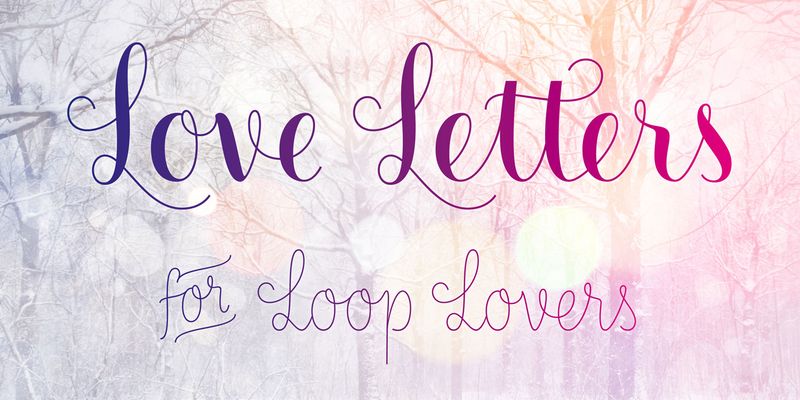
LiebeLotte Font Free Download is a delightful and expressive handwritten script typeface, perfect for adding charm and personality to any creative project. With its playful curves and natural stroke flow, LiebeLotte is ideal for wedding invitations, greeting cards, product packaging, and anything that needs a warm, handmade touch.
Designed to mimic authentic penmanship, LiebeLotte brings a human feel to your typography while maintaining excellent readability. It comes with beautiful swashes, alternates, and ligatures, giving designers the flexibility to create truly custom-looking lettering. Whether you're designing branding for a boutique, a lifestyle blog, or festive printables, LiebeLotte Font Free Download offers a whimsical and stylish solution.
This font works especially well in decorative headlines, signature-style logos, or layered with textured backgrounds to amplify its crafted feel. Pair it with clean sans-serifs or elegant serifs for contrast, or let it stand alone as the star of your design.